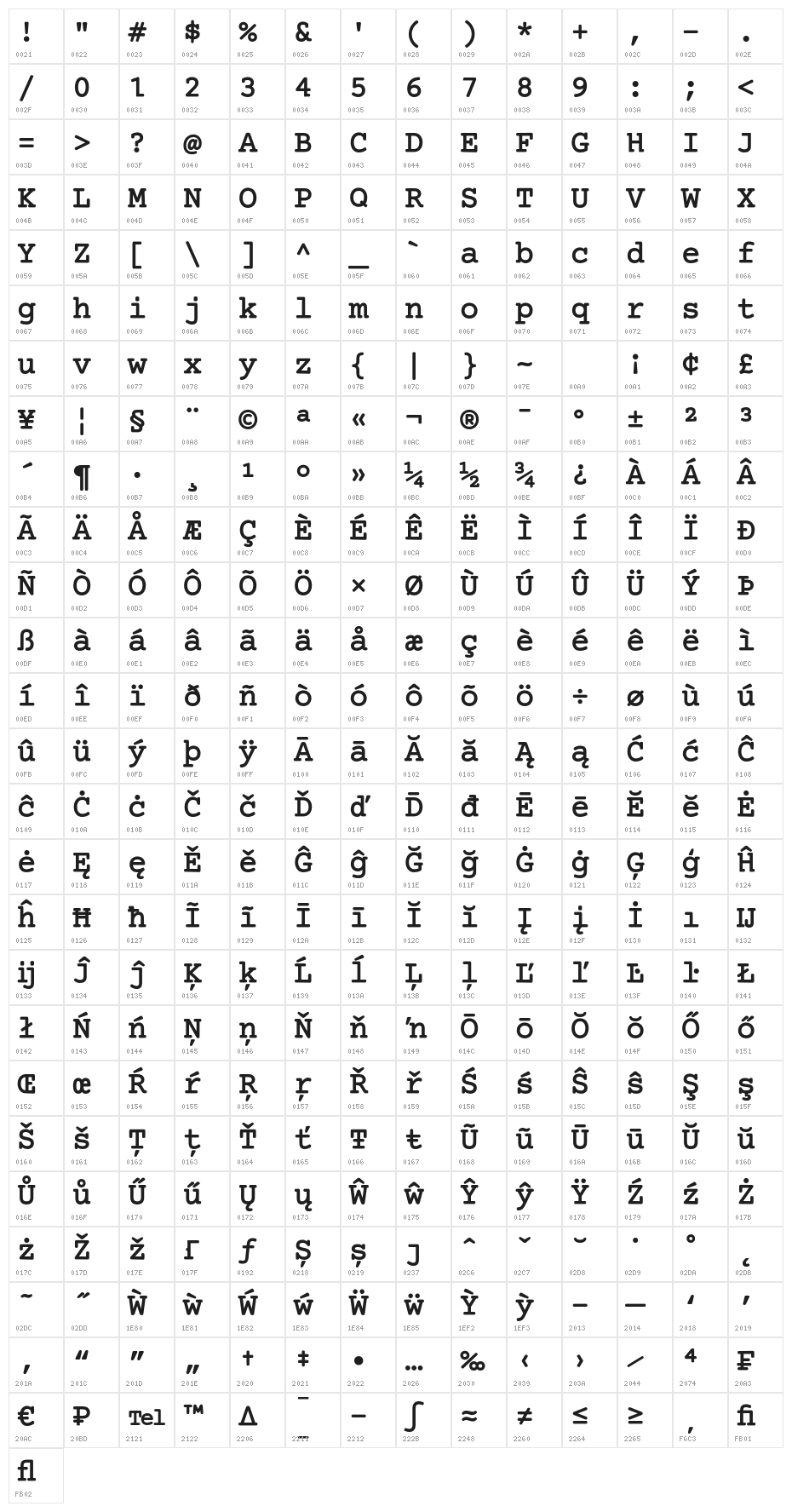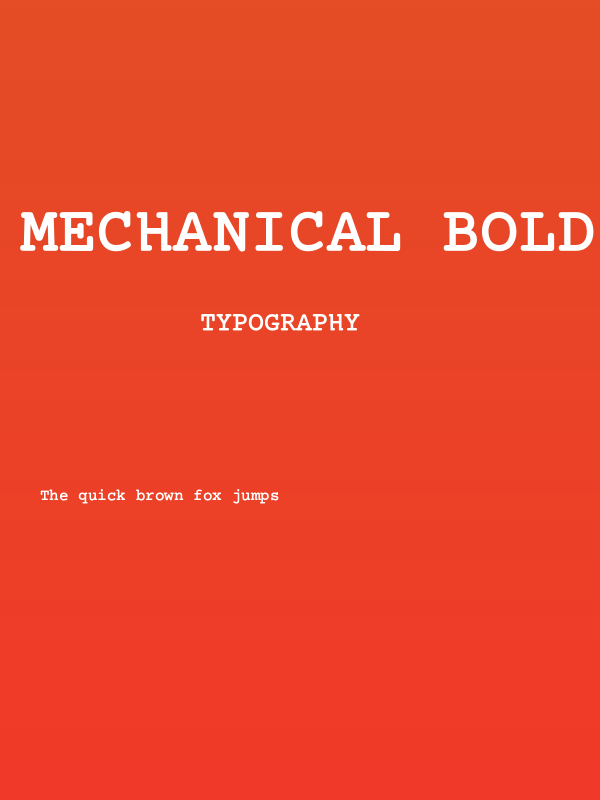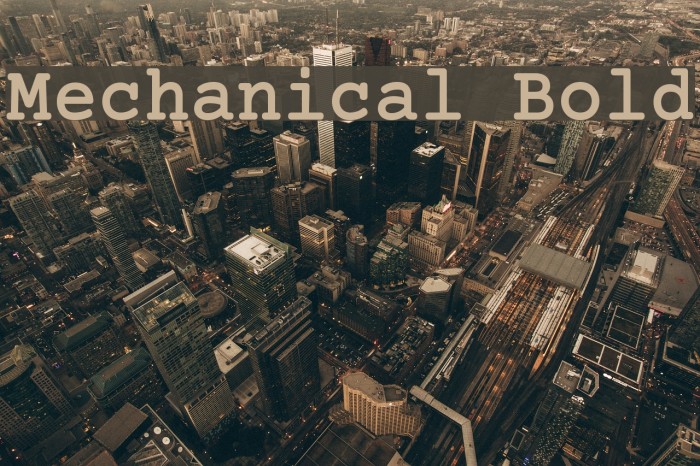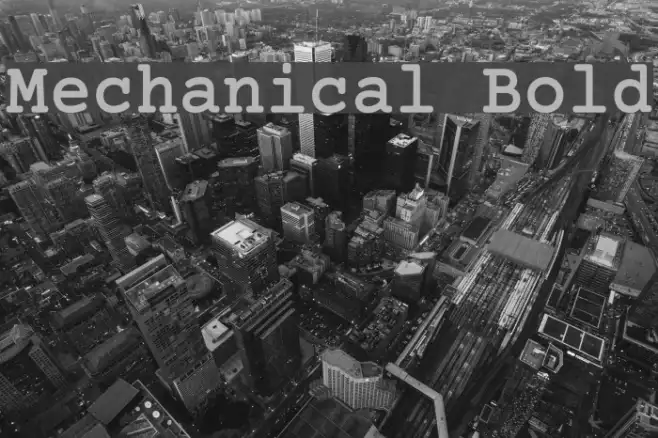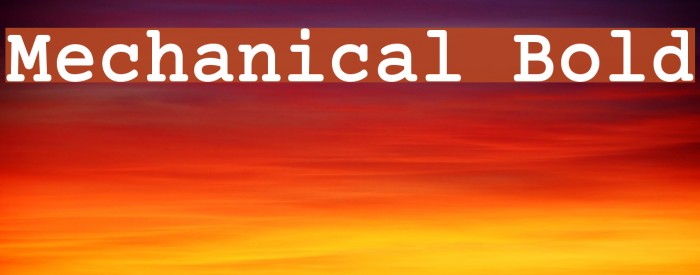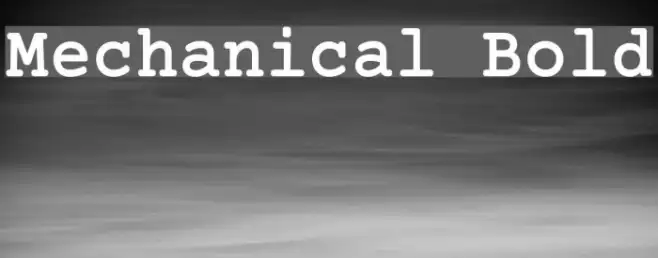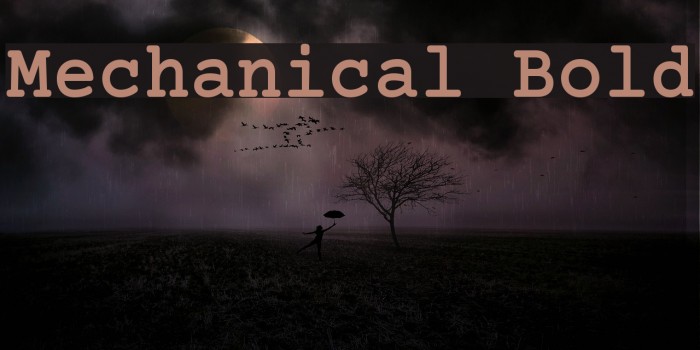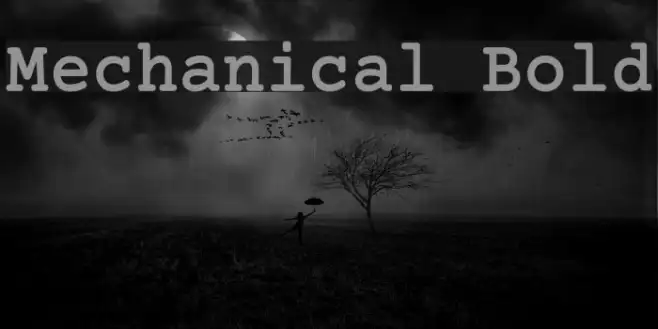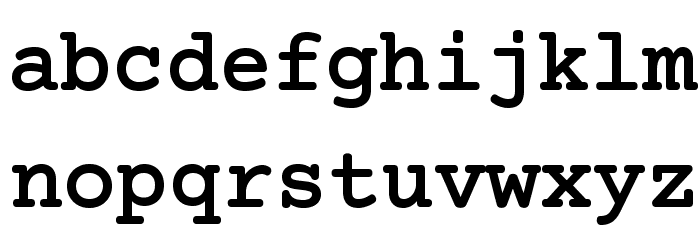
Mechanical Bold Font
Mechanical Bold Description
This font features a bold and robust slab serif style, characterized by thick, block-like serifs that give it a strong and authoritative presence. The uppercase and lowercase letters maintain a consistent weight, providing a uniform appearance across the alphabet. The numerals are clear and legible, with a slightly rounded design that complements the overall boldness of the font. Special characters are well-defined, ensuring clarity and readability in various contexts. This font's boldness and structure make it suitable for impactful and attention-grabbing designs.
| Proposed Projects | Ideal for headlines, posters, branding, and any design requiring a strong visual impact. |